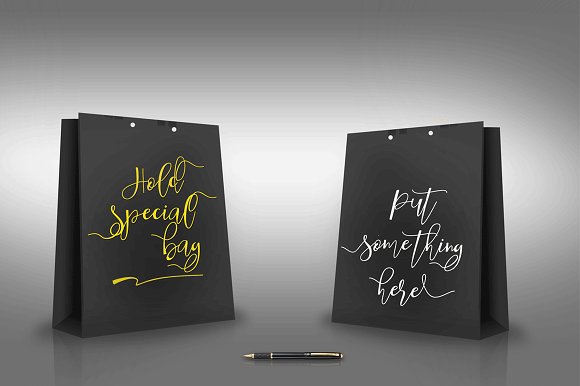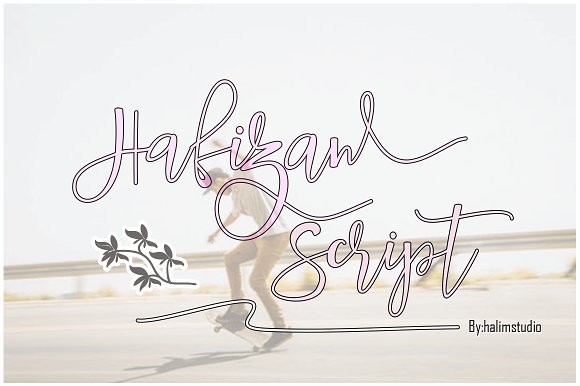
Hafizan Script
Hafizan Script Font
Hafizan script is a new varian of handmade script typeface. present to you to complete your colections of script font. This typeface has been enriches with additional alternates characters . Do hope helpfully to catch any design soul. finally, no word to say than “Go success and enjoy it”.